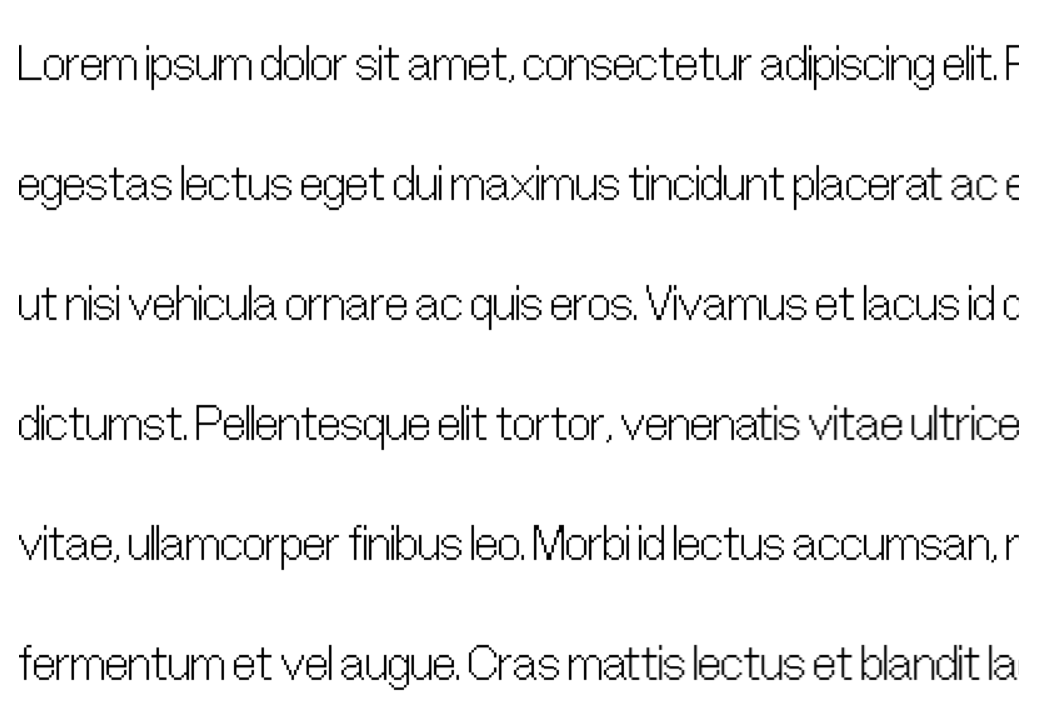
Renamed the font to "FS NeueBit Typeface"
I still like this font…
whoever rated 1/10 in this font, genuinely what is wrong with you?
@NZWStudios2024: I think the spacing is too tight. The leading is disproportional; it looks like double-spaced text on steroids. Why do you need so much empty space between lines?
Yeah I know. So anyone tell me how to fix this?
There is a stray brick under a Cherokee letter, which increases the spacing.
i found a stray brick on ꙰, Ꝁ and Ꝃ.